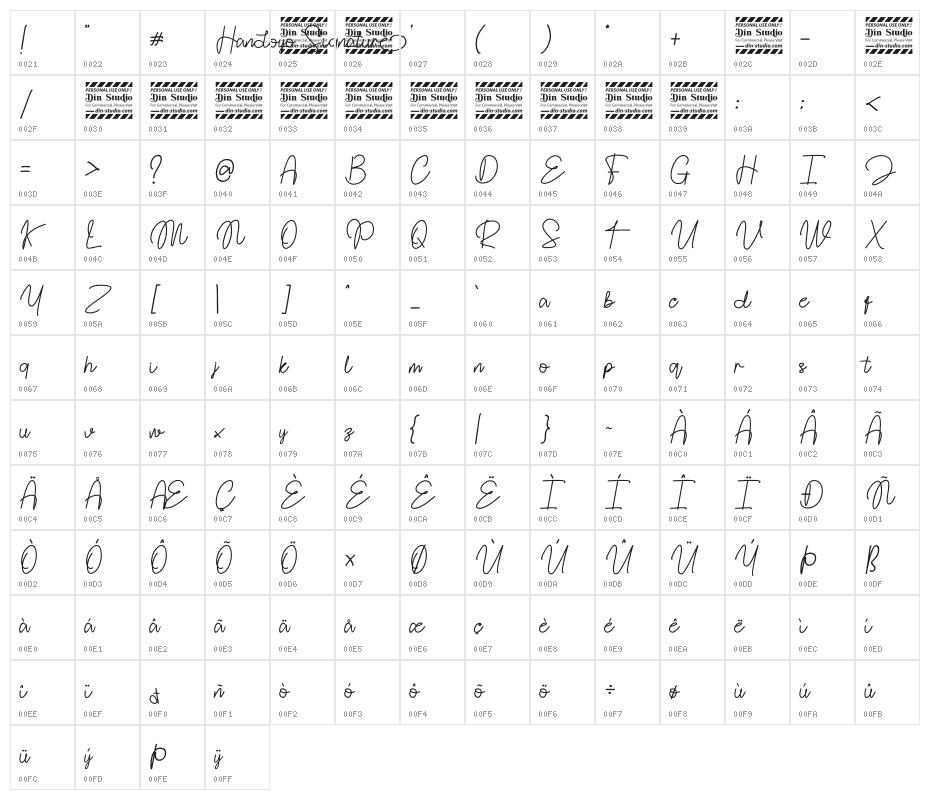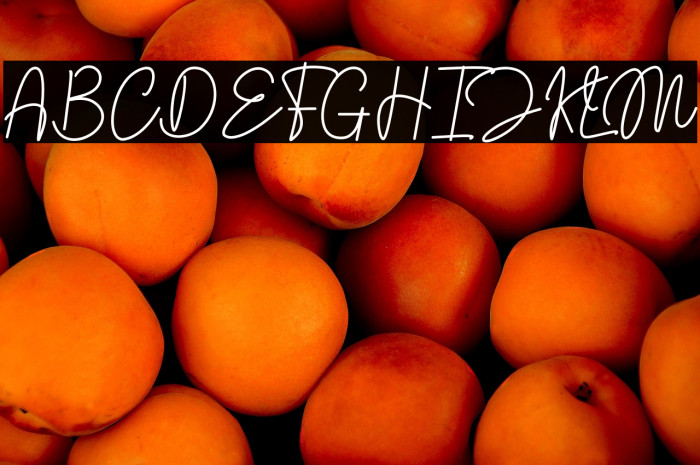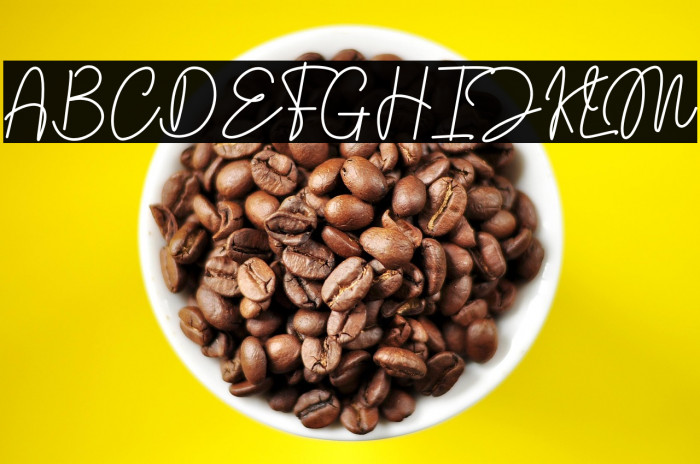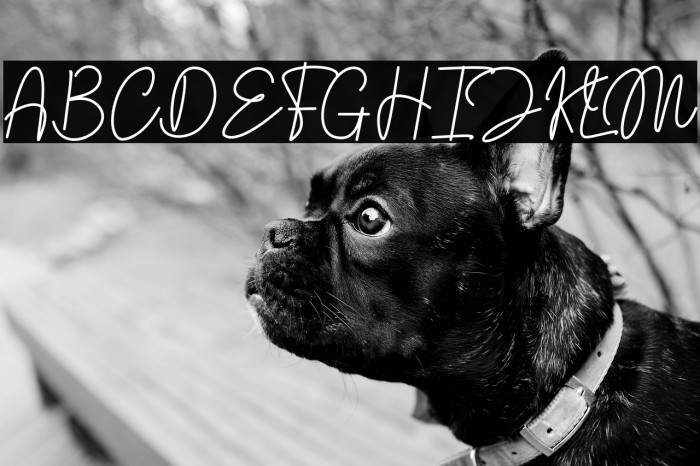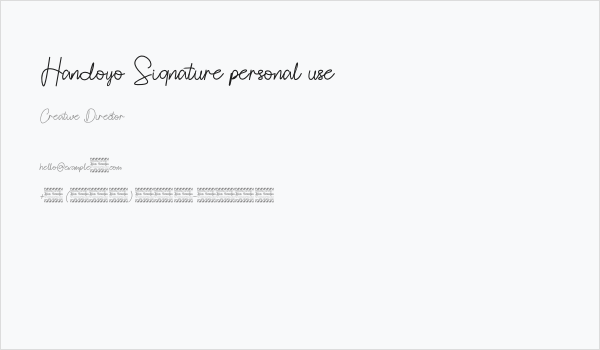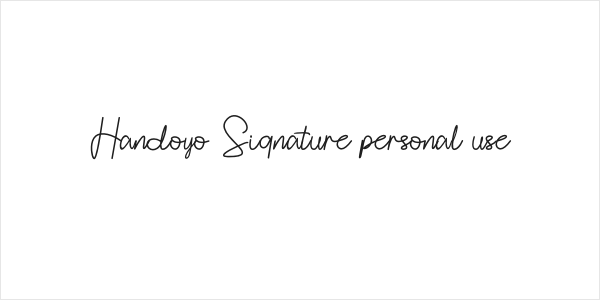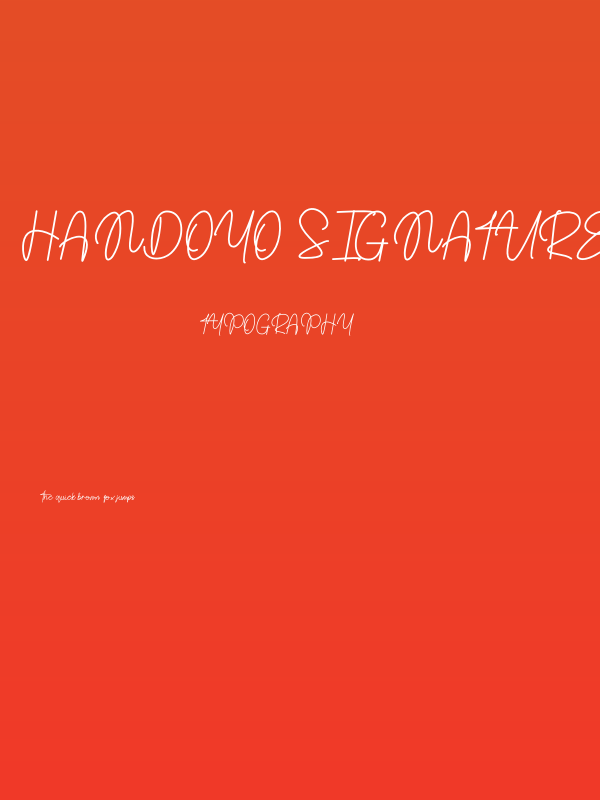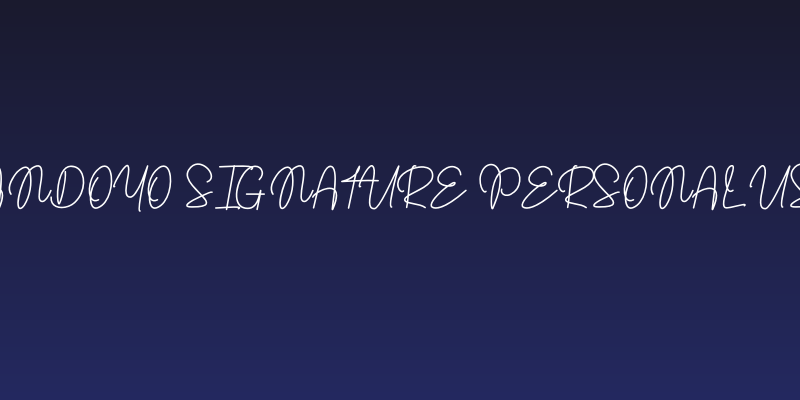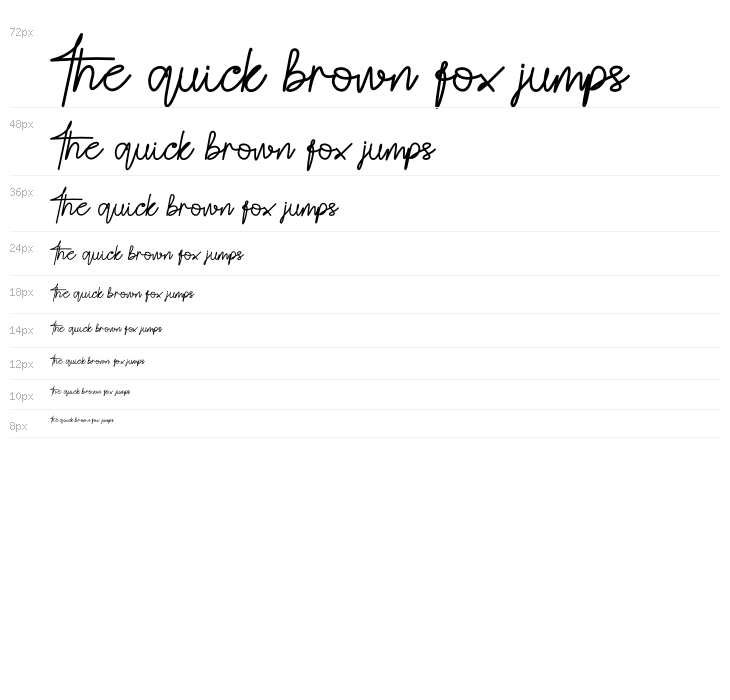
Handoyo Signature personal use Font
Handoyo Signature personal use Description
This font features a flowing, cursive style that mimics the elegance of a handwritten signature. The letters are connected with smooth, sweeping strokes, giving it a personal and artistic feel. The uppercase letters are slightly more elaborate, with some characters featuring unique loops and flourishes. The lowercase letters maintain a consistent flow, enhancing readability while retaining a stylish appearance. The numbers and special characters are designed to complement the overall aesthetic, ensuring a cohesive look across all text. This font is ideal for projects that require a touch of sophistication and individuality.
| Overall Style | Elegant, Personal |
| Proposed Projects | Ideal for wedding invitations, personal branding, signature logos, and elegant stationery. |